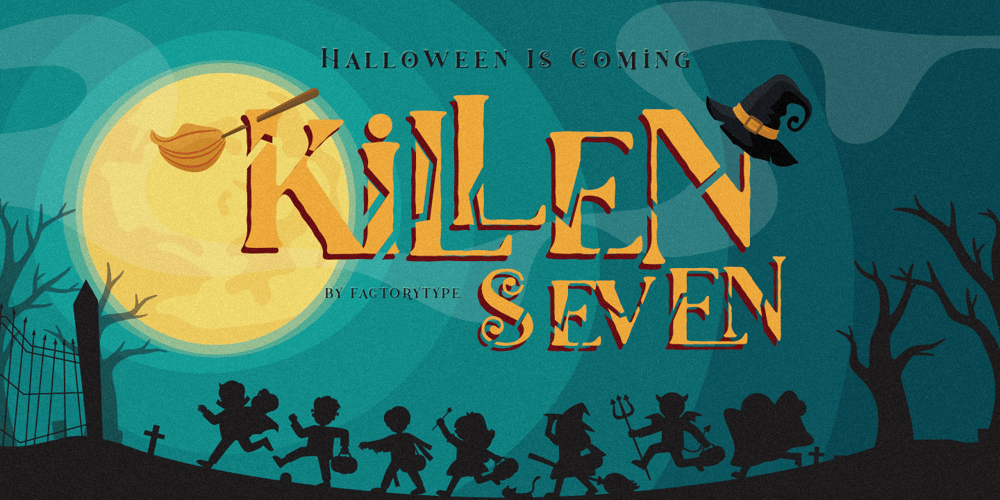
Killen Seven
Killen Seven font
Killen Seven Font Family was designed by Wahyu Rahmawan and published by Factory738. Killen Seven contains 7 styles and family package options. Halloween is quickly approaching!!!Killen Seven is an excellent choice for any Halloween project. Get inspired by its spooky atmosphere and use it to make any Horror project stand out. It has separate lower and uppercase letters, as well as numbers, punctuation, and multilingual letters. The Ligatures will come in handy for whatever your imagination can come up with! 7 Styles Basic Latin A-Z and a-z Numerals & Punctuation Stylistic Ligatures Multilingual Support for ä ö ü Ä Ö Ü … Free updates and feature additions Thanks for looking, and I hope you enjoy it.